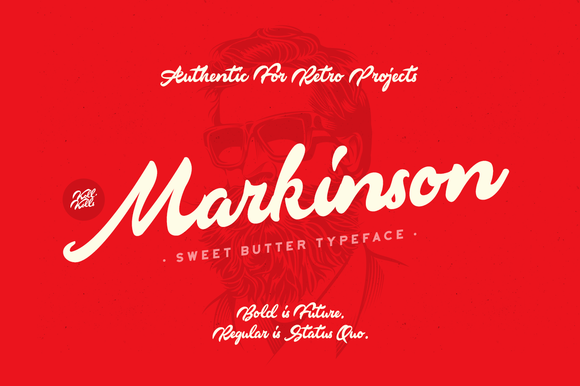
Markinson Font
Comes with the classic and retro style and made to give you ease in accomplishing the work of typography such as logotype, poster, headline, and other creative projects. Markinson comes with usability to use for Logotype, Letterhead, Poster, Apparel Design, Label and etc.